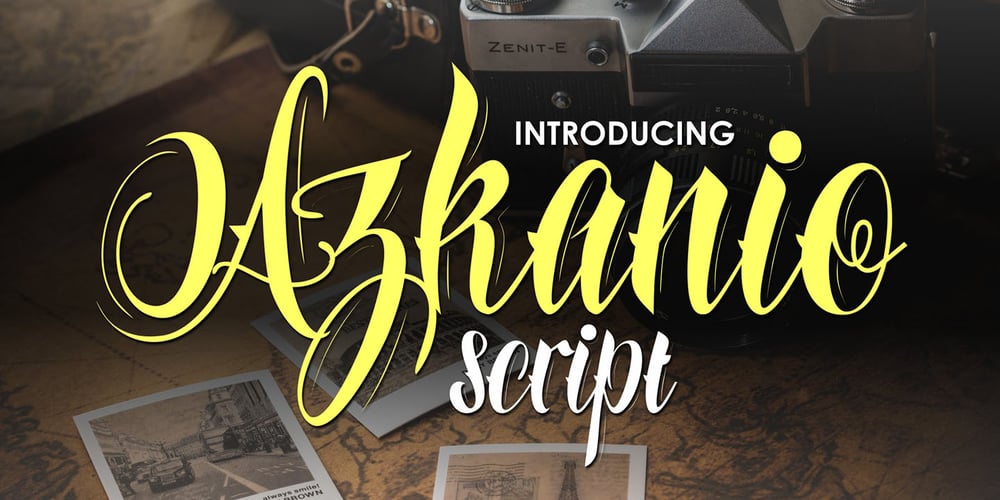
Azkanio Script
Azkanio Script font
Azkanio Script Font Family was designed by Sipanji and published by Sipanji21. Azkanio Script contains 1 styles and family package options. Azkanio is a sweet and charming script with a unique style. Get inspired by its bold feel, and turn any design idea into a true standout with this bold script!